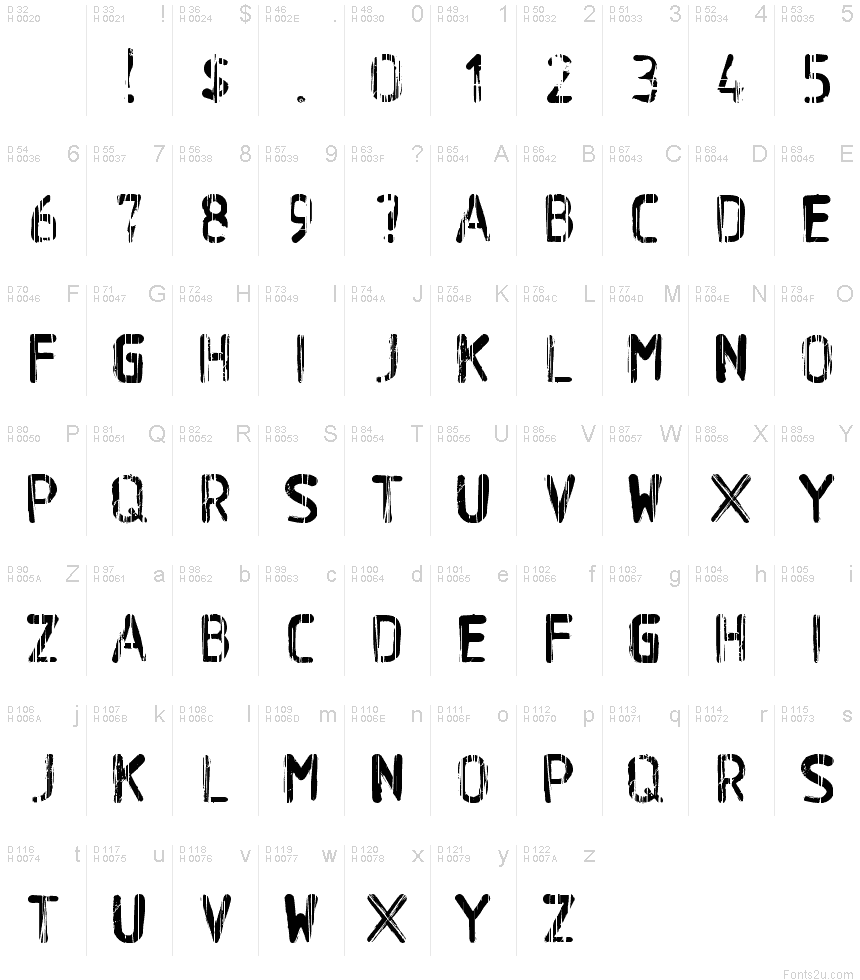
BAWetPaint-1980 by S. Bradley Askew is a free eroded caps display font with the dragged, uneven finish of hastily applied paint. Broad letter shapes are split by long streaks and rough gaps, with sharply changing stroke widths. The result feels raw and immediate.
That scraped texture suits punk posters and album packaging, but it also gives streetwear branding an abrasive handmade edge. The recurring streaks and broken marks can become part of gritty music artwork rather than ordinary lettering.
Created in 2001, the font was never fully completed. It contains uppercase letters and some punctuation.